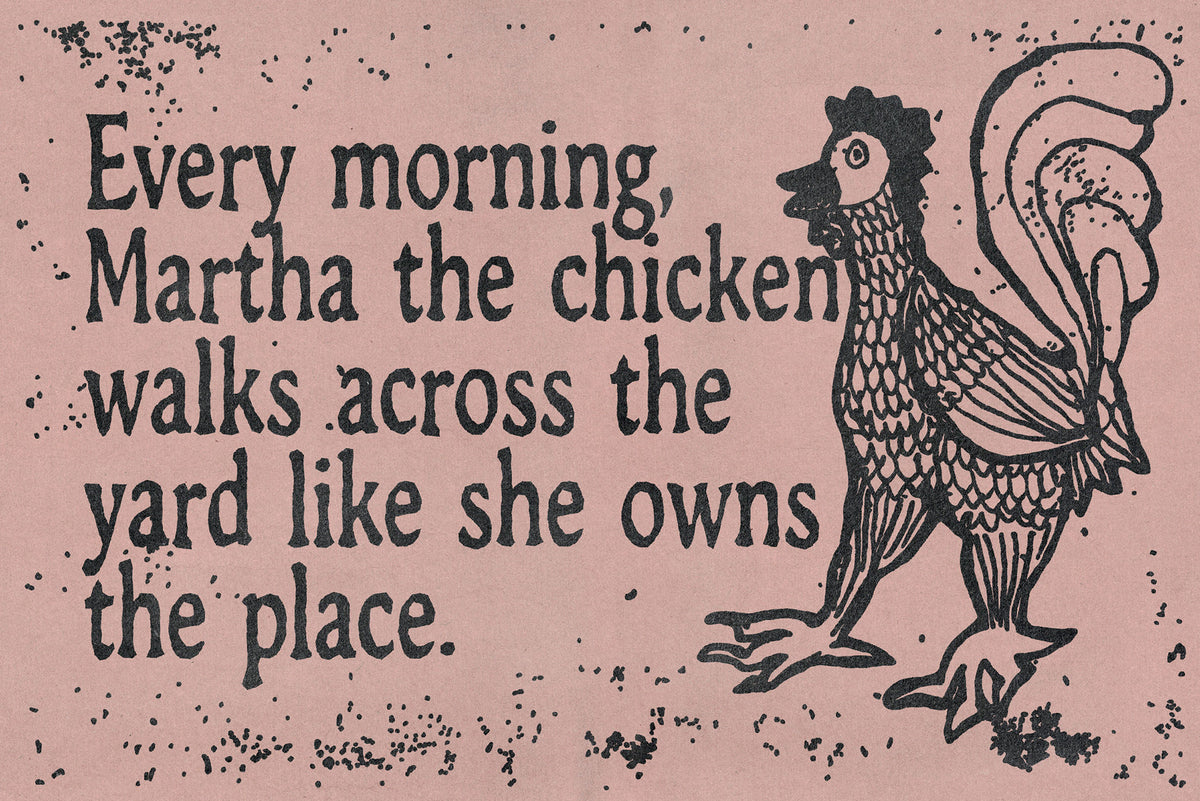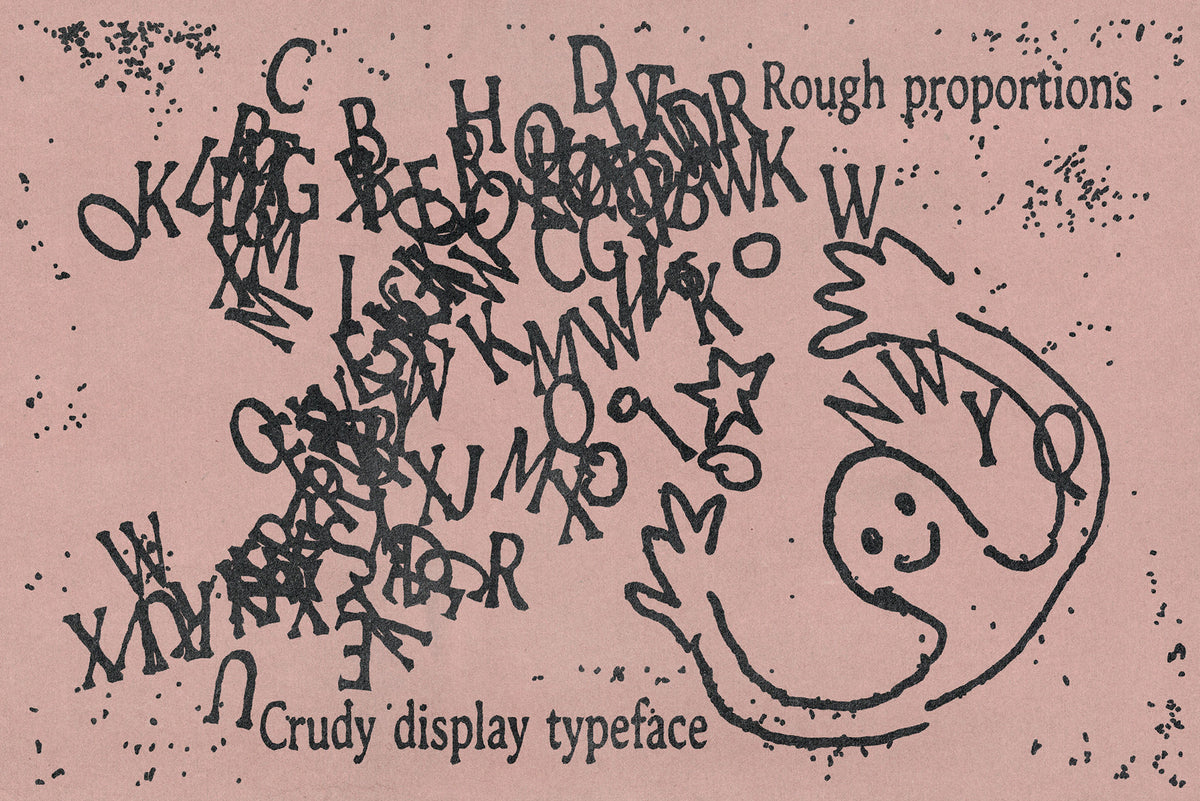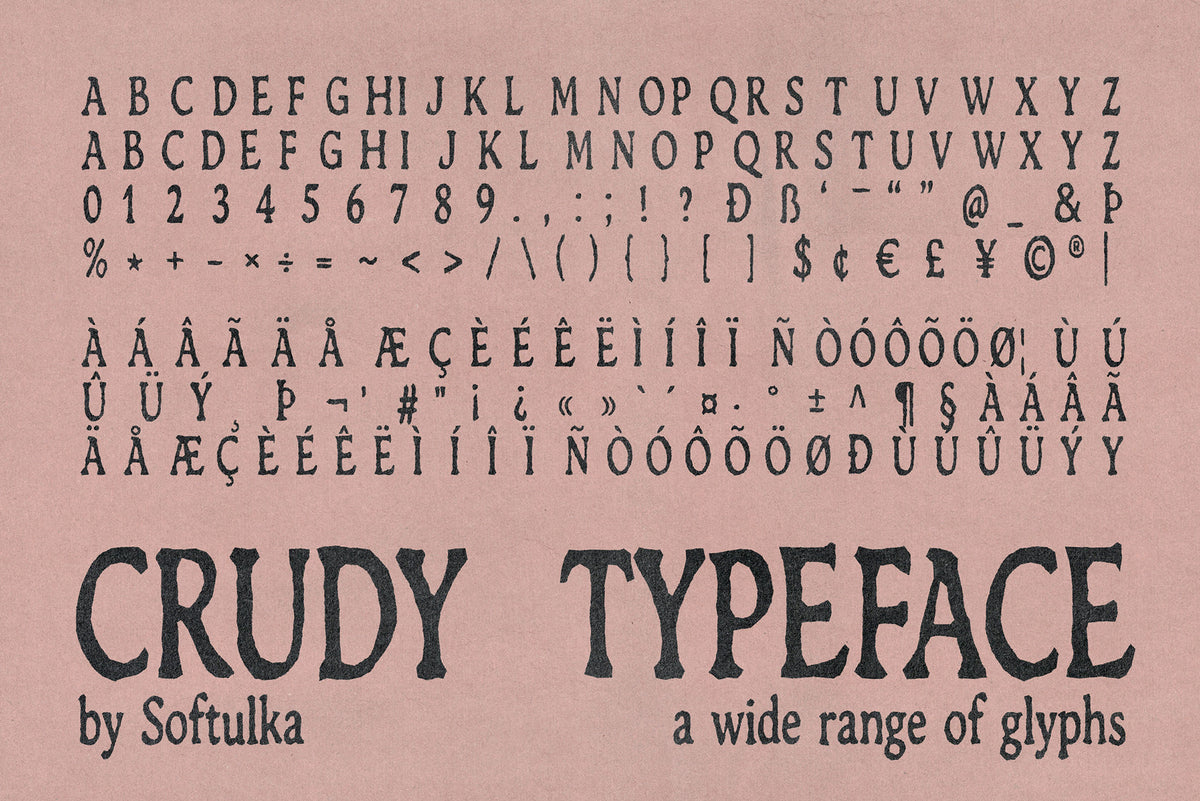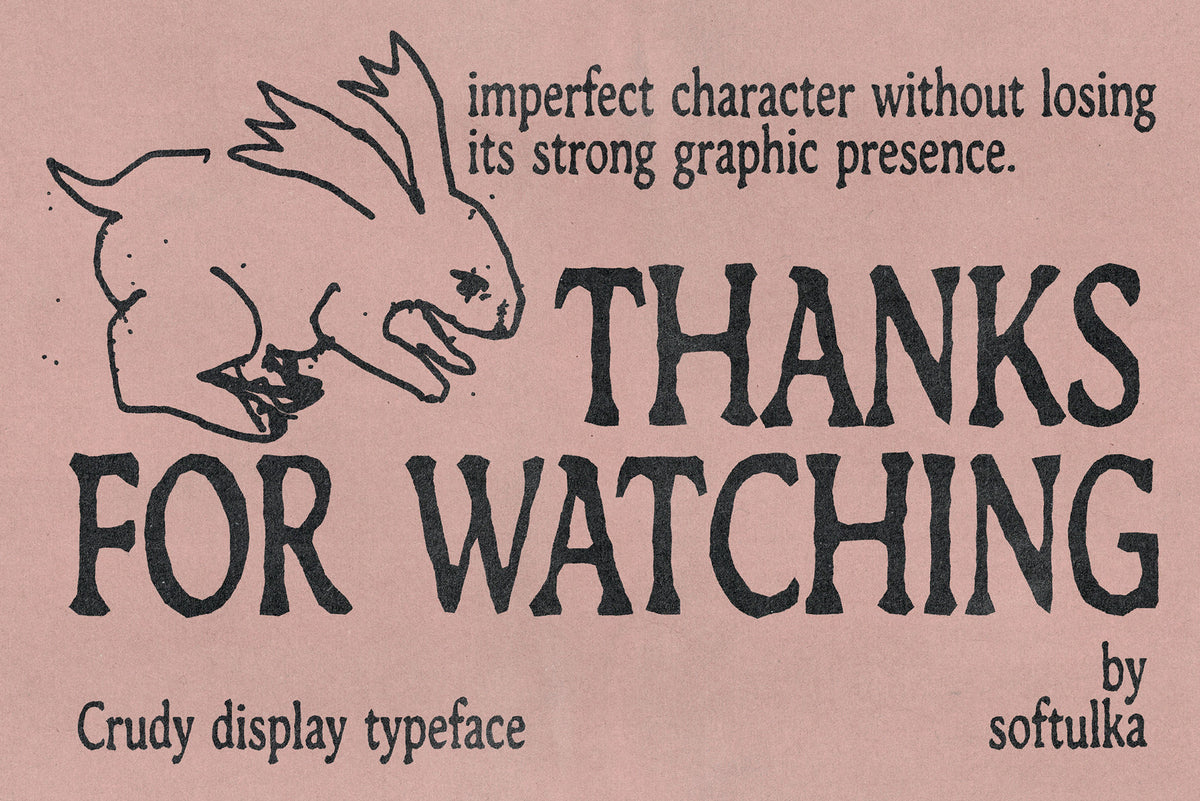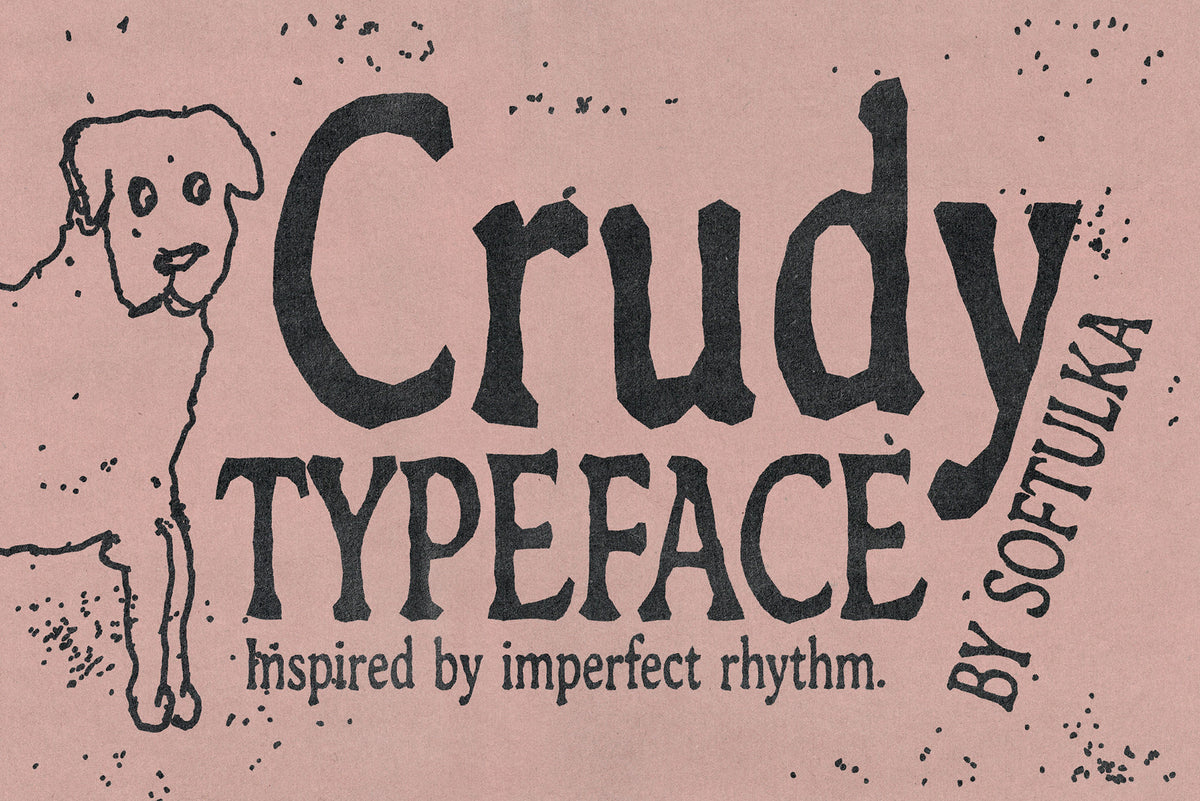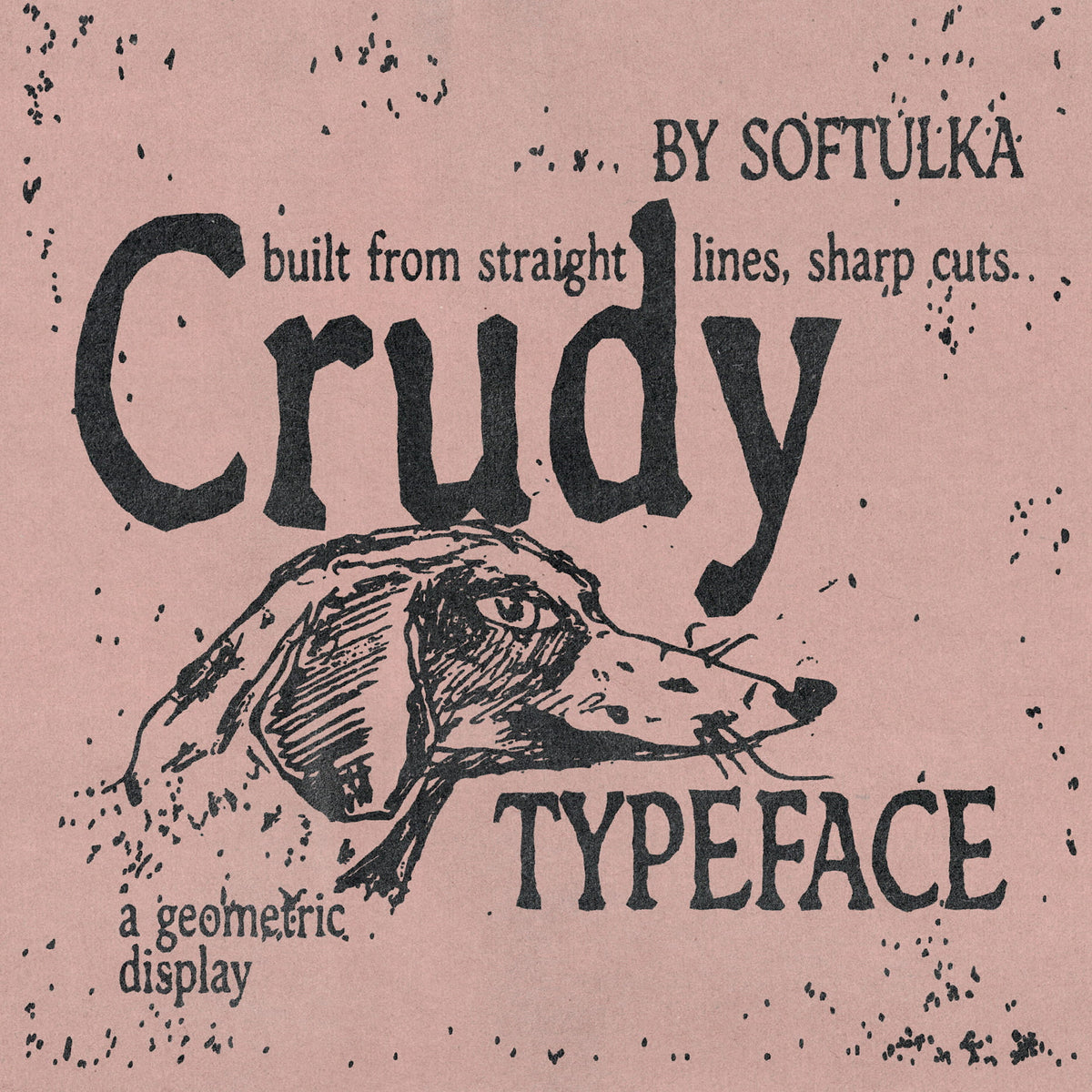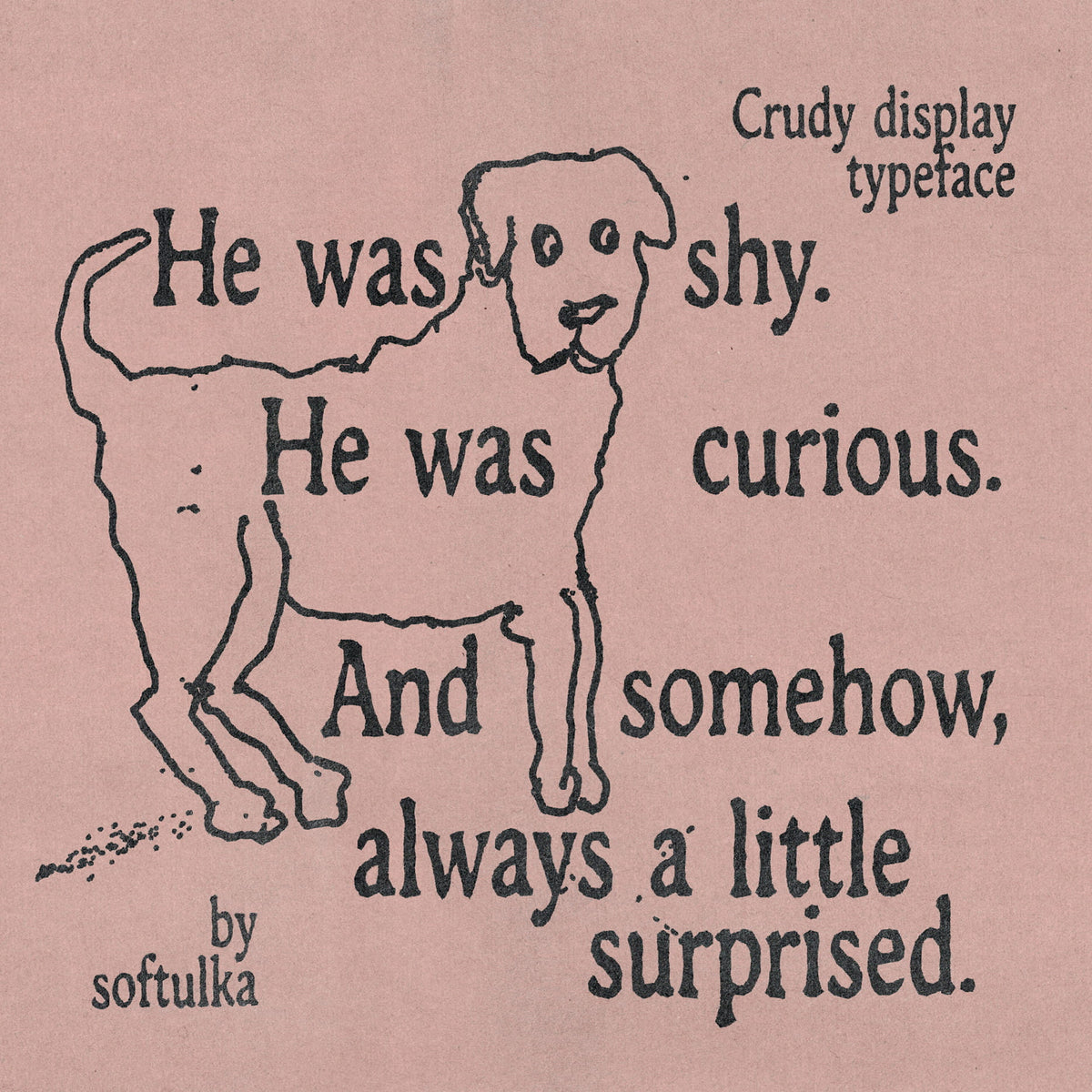
Crudy Typeface
Crudy is a geometric display typeface built from straight lines, sharp cuts, and deliberately rough proportions. Its letterforms feel crudely cut and assembled, with blunt corners, uneven edges, and subtle irregularities throughout the alphabet. The rigid geometry combined with an intentionally careless construction gives Crudy a raw, imperfect character without losing its strong graphic presence. Designed for large-scale typography, it works well for posters, covers, packaging, titles, and experimental graphic compositions.